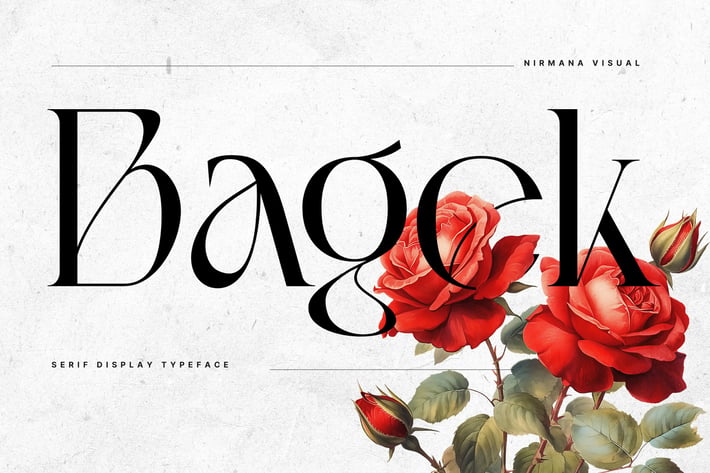
Bagek - Modern Branding Logo Font
Bagek Display - Logo Font
Bagek Display offers beautiful typographic harmony for a diversity of design projects, including logos & branding, social media posts, advertisements & product designs.